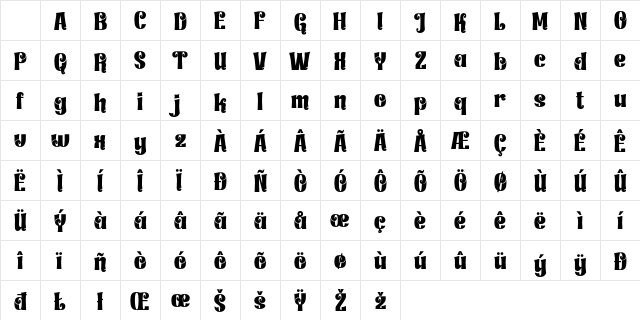
Complete Lindraki Regular glyph index. Displaying only characters natively supported by Lindraki Regular font.
Lindraki is a composed and adaptable typeface that performs quietly and consistently across a wide range of design contexts.